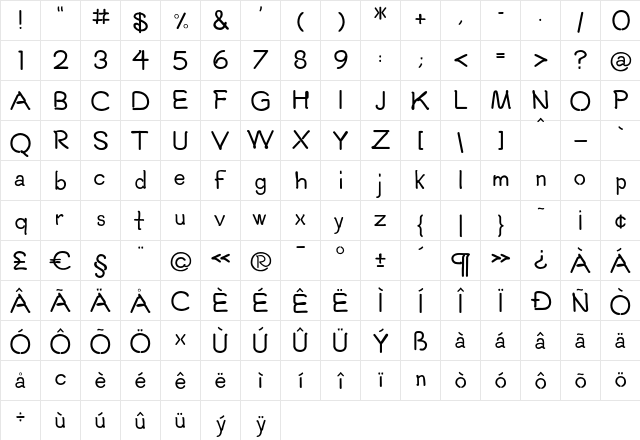
24HRS Regular
Design Context for 24HRS Typeface
24HRS takes a measured approach to typography — its balanced proportions and neutral character make it a reliable workhorse for both digital and print work.